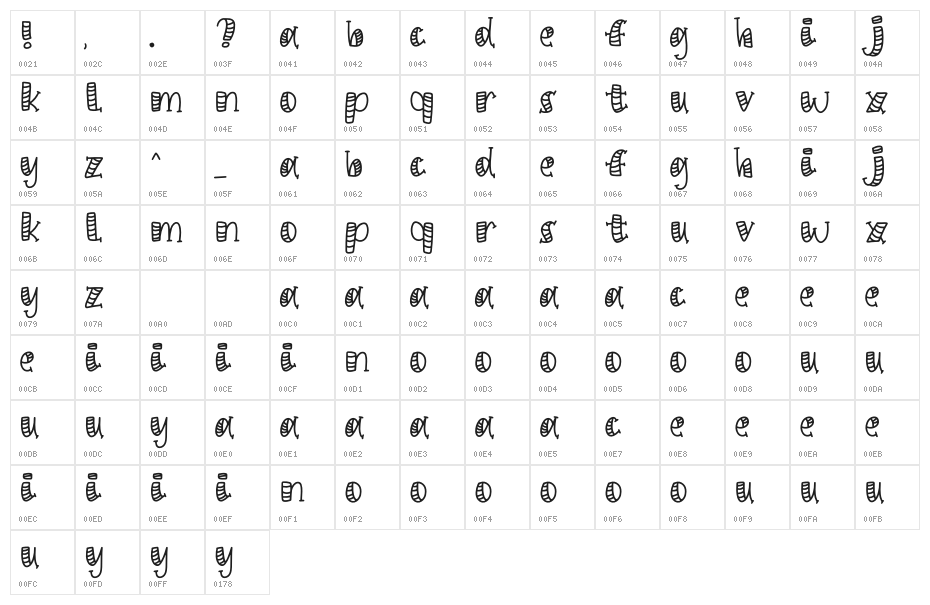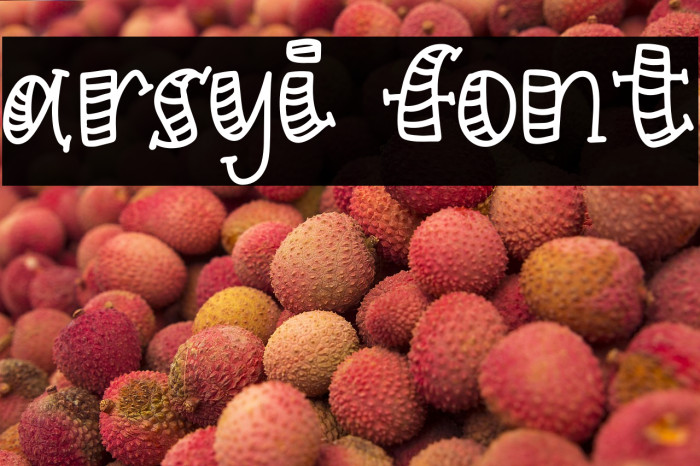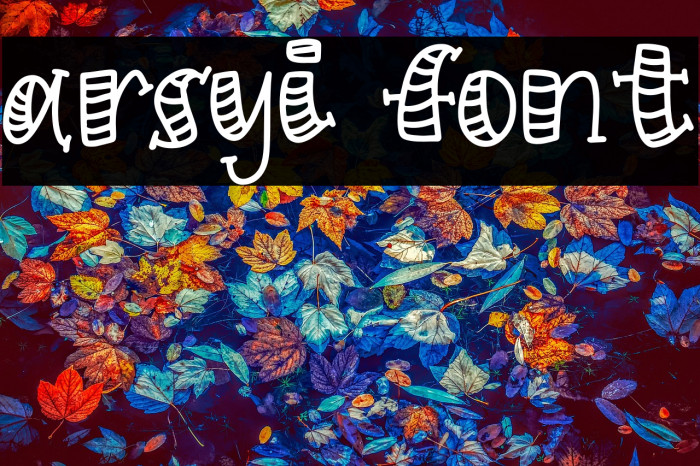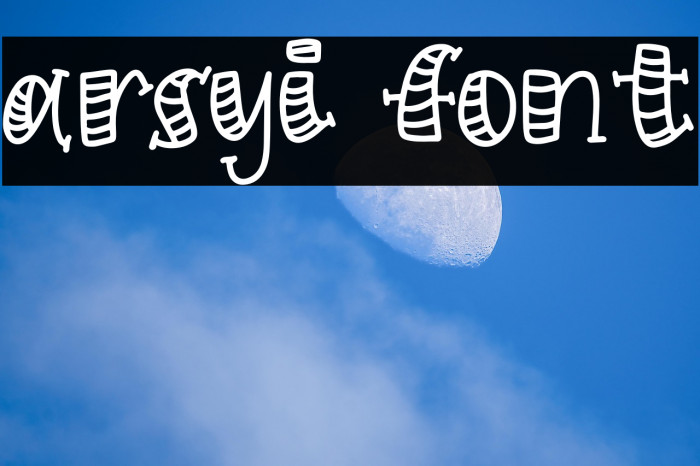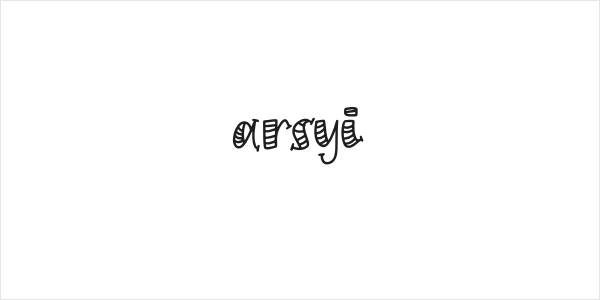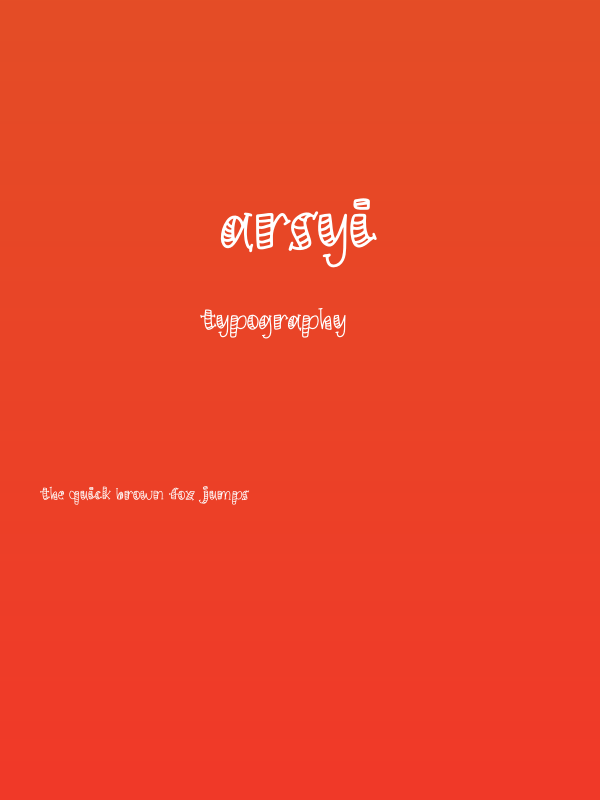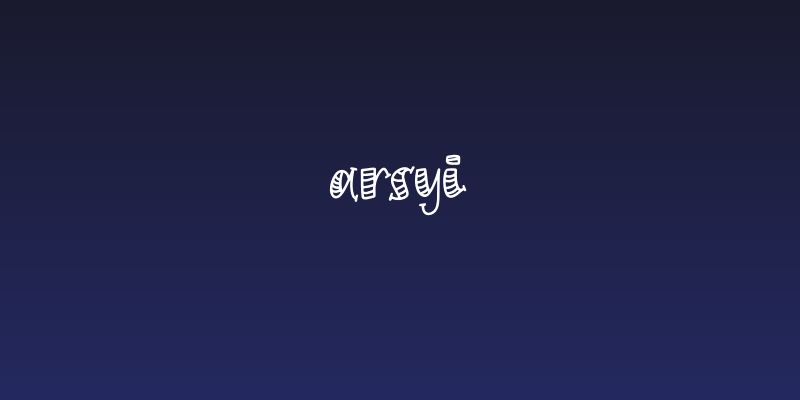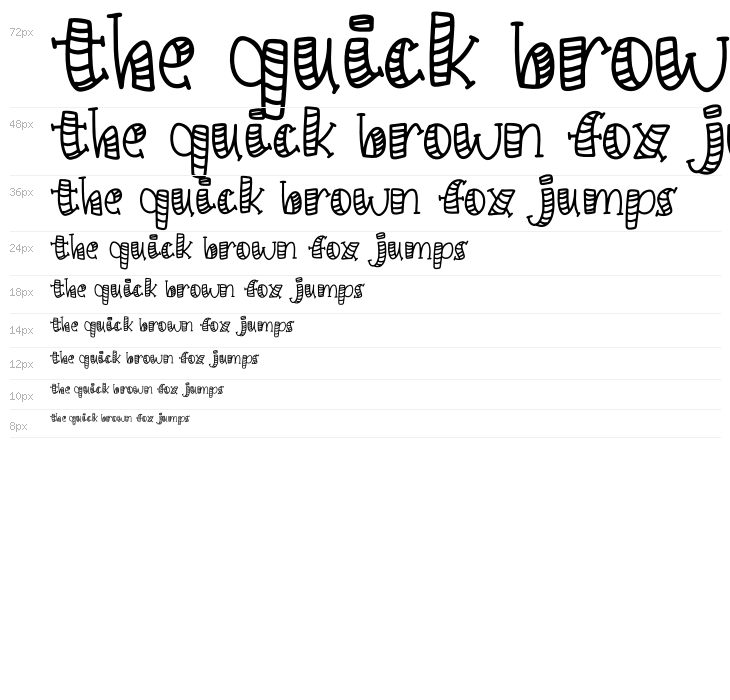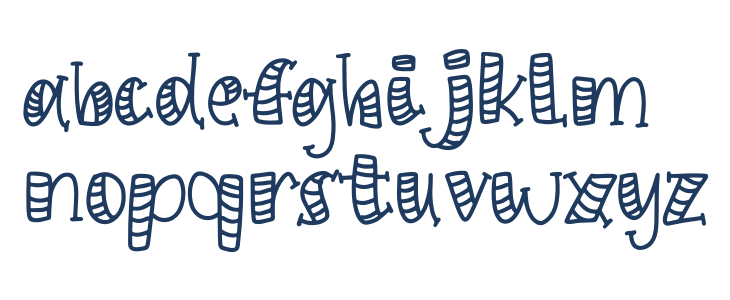
Arsyi Font
Arsyi Description
This font features a playful and whimsical design, characterized by its hand-drawn, irregular strokes and decorative elements. The letters have a unique, artistic flair with varying line thicknesses and quirky embellishments, such as stripes and curls. The lowercase letters exhibit a casual, friendly style, while the uppercase letters maintain a consistent, yet imaginative appearance. The overall design is lively and engaging, making it suitable for creative and informal applications. The font's distinct personality is enhanced by its decorative elements, which add a touch of fun and creativity to any project.
| Overall Style | Whimsical, Playful |
| Proposed Projects | Ideal for children's books, greeting cards, playful branding, and creative posters. |